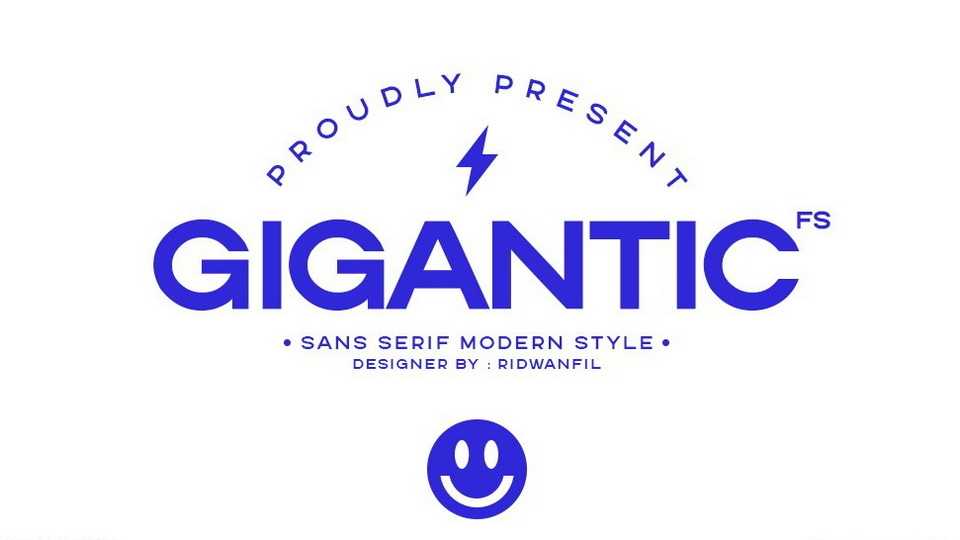
Download Gigantic FS font, a geometric sans serif typeface designed to amplify and sharpen visuals with the intent of emotionally convincing with power and toughness.
Designer: Ridwan Fadilah